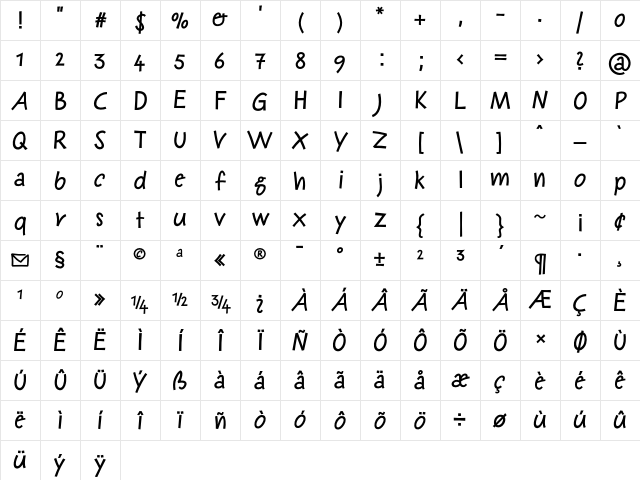
Saturday SemiBold
Style: SemiBold
Design Context for Saturday
Saturday is a composed and adaptable typeface that performs quietly and consistently across a wide range of design contexts. Its bold stroke weight gives it real presence on the page.